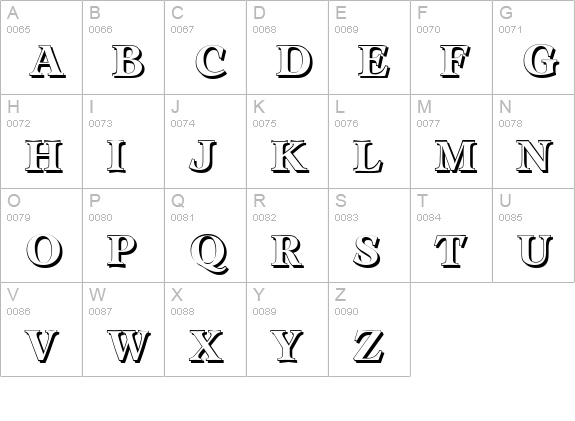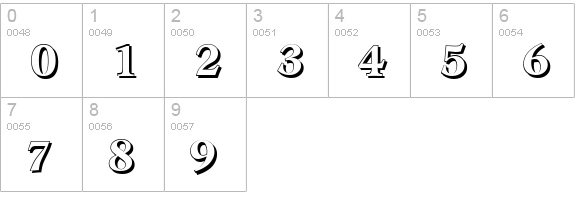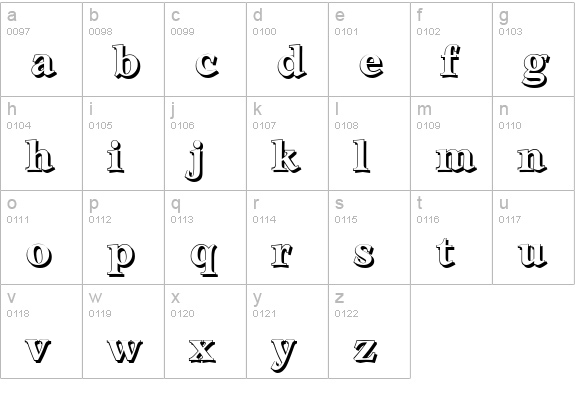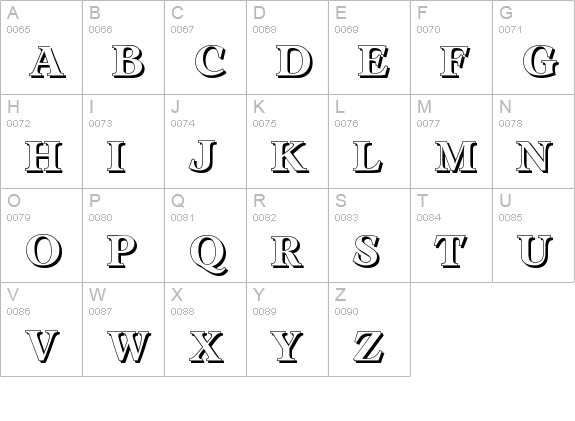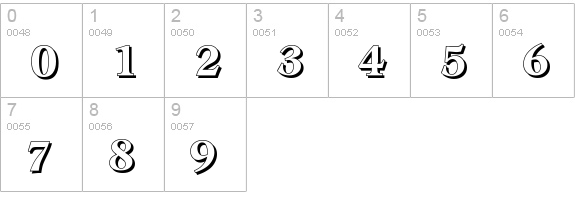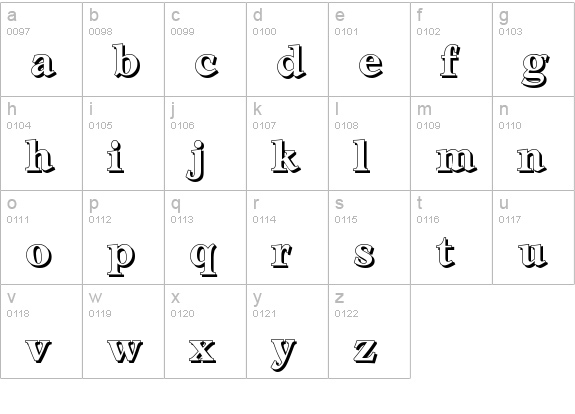
LeamingtonShadow-Bold Font Details
LeamingtonShadow-Bold is a strong, high-contrast variant in the LeamingtonShadow typeface family \xE2\x80\x94 well suited to headlines, attention-grabbing titles, and strong calls-to-action.
LeamingtonShadow-Bold font is a striking and bold typeface that exudes elegance and sophistication. Its modern yet classic design makes it perfect for a variety of projects, from branding to editorial design. The thick strokes and sharp serifs give this font a strong presence, making it ideal for headlines and titles that demand attention. What sets LeamingtonShadow-Bold font apart is that it is available for free download at FontsMarket.com. This means that you can easily access this high-quality typeface without any cost, making it a valuable addition to your font library. Don't miss out on the opportunity to enhance your designs with the timeless appeal of LeamingtonShadow-Bold font - download it today for free and elevate your creative projects to the next level.